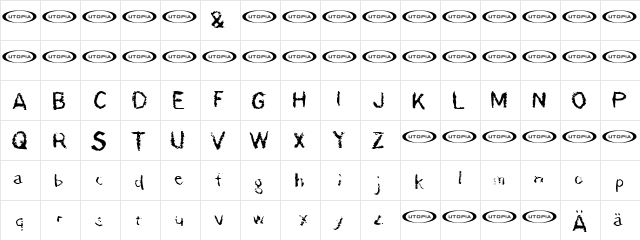
der D䭯nschriftkegel Regular
Design Context for der D䭯nschriftkegel Typeface
der D䭯nschriftkegel is a composed and adaptable typeface that performs quietly and consistently across a wide range of design contexts.